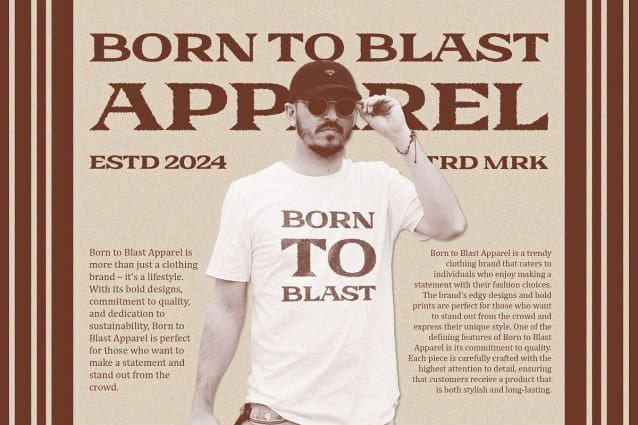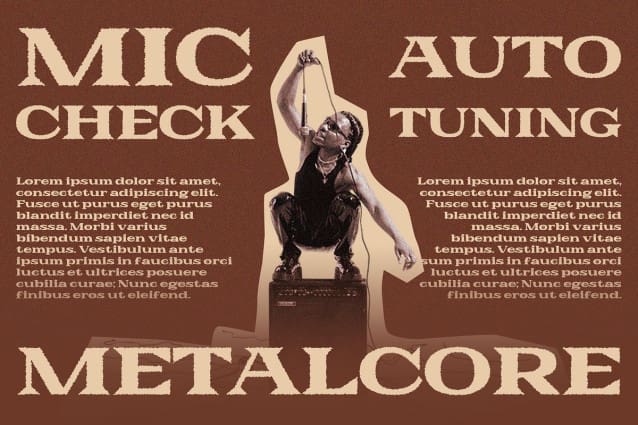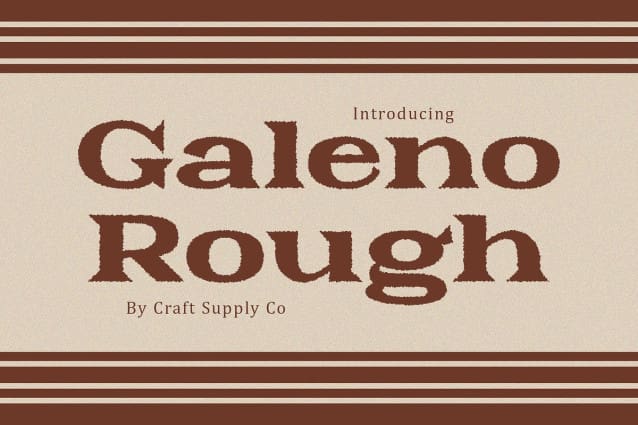
Galeno Rough Font
Galeno Rough Font: Bold and Textured Display Font. Rough Texture, Bold Impact Galeno Rough features a striking serif display font with a rough texture effect. Its bold presence commands attention and adds a unique touch to any display project.
Serif Sophistication with a Rough Twist Combining the elegance of serif typography with a rough texture effect, This font offers a distinctive blend of sophistication and ruggedness. Its textured appearance adds character and visual interest.
Perfect for Display Needs Tailored for display purposes, This font excels in various contexts, from posters to packaging. Its bold and textured style ensures that your message stands out effectively in any design project.
Versatile Application Beyond its rugged appearance, This font offers versatility in application. Whether used in branding, advertising, or editorial design, its bold serif display adds impact and personality.
Bold, Textured, and Versatile This font emerges as a versatile choice for display typography. With its bold serif design and rough texture effect, it brings a unique aesthetic to any project, ensuring that your message is delivered with impact and style.